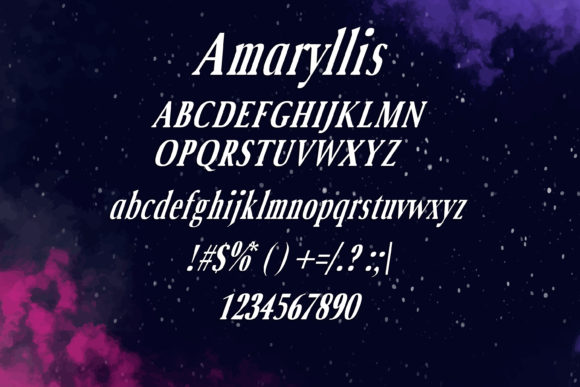
Introducing Amaryllis Font: Elevate Your Design with Timeless Elegance
Are you looking for a font that exudes confidence, style, and charm? Look no further than Amaryllis, a stunning serif font that can elevate any design project to new heights. With its classic and timeless appeal, Amaryllis is the perfect choice for designers and crafters who want to make a lasting impression.
The Characteristics of Amaryllis Font
Amaryllis is a serif font that boasts a unique blend of traditional and modern elements. Its elegant lines, refined curves, and precise letter spacing make it an ideal choice for a wide range of design applications. Whether you’re working on a logo, brochure, or website, Amaryllis is sure to deliver your message with clarity and sophistication.
Why Choose Amaryllis Font?
So, what sets Amaryllis apart from other fonts? Here are just a few reasons why designers and crafters love working with this versatile font:
- Timeless appeal: Amaryllis has a classic look that never goes out of style. Its traditional serif design ensures that your text will remain legible and elegant, even as design trends evolve.
- High legibility: The precise letter spacing and careful attention to detail in Amaryllis ensure that your text is easy to read, even at small sizes.
- Versatility: Amaryllis is suitable for a wide range of design applications, from print materials like brochures and posters to digital projects like websites and social media graphics.
- Elegant and sophisticated: Amaryllis adds a touch of refinement and luxury to any design project, making it perfect for high-end brands and businesses.
How to Use Amaryllis Font in Your Design Projects
Amaryllis is an incredibly versatile font that can be used in a variety of design applications. Here are a few ideas to get you started:
- Logos and branding: Use Amaryllis to create a sophisticated and memorable logo that reflects your brand’s values and personality.
- Print materials: Amaryllis is perfect for brochures, posters, flyers, and other print materials where you want to make a lasting impression.
- Web design: Add a touch of elegance to your website with Amaryllis, which is optimized for digital use and works beautifully on a variety of devices.
- Social media graphics: Use Amaryllis to create eye-catching social media graphics that showcase your brand’s personality and style.
Tips for Getting the Most Out of Amaryllis Font
To get the most out of Amaryllis, here are a few tips to keep in mind:
- Experiment with font sizes: Amaryllis looks great at a variety of font sizes, so don’t be afraid to experiment and find the perfect size for your design.
- Play with font colors: Amaryllis works beautifully in a range of colors, from classic black and white to bold and bright hues.
- Pair with other fonts: Amaryllis pairs beautifully with other serif and sans-serif fonts, so feel free to get creative and experiment with different font combinations.
Amaryllis is a truly exceptional font that can elevate any design project to new heights. With its timeless appeal, high legibility, and versatility, it’s the perfect choice for designers and crafters who want to create beautiful and effective designs. Whether you’re working on a logo, brochure, website, or social media graphic, Amaryllis is sure to deliver your message with confidence, style, and charm.